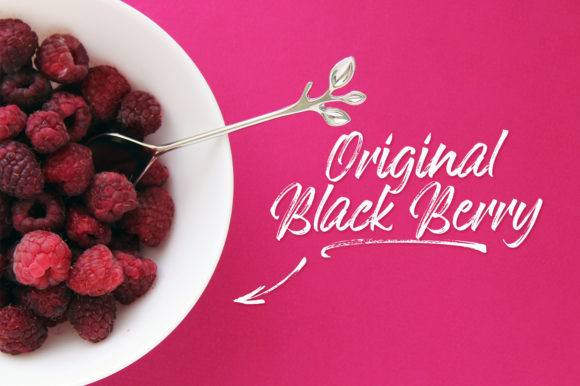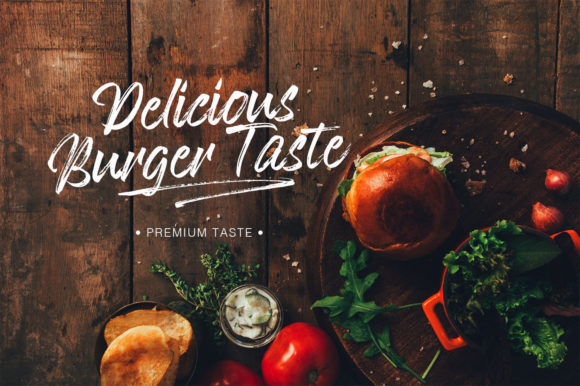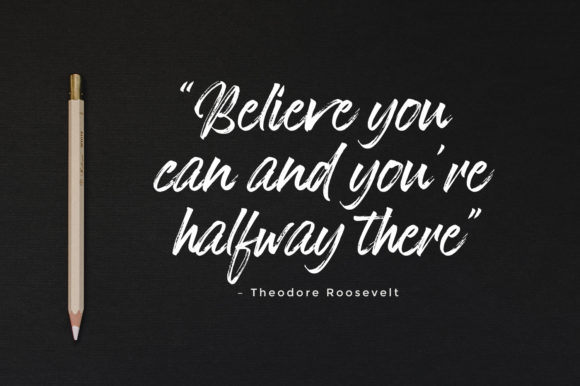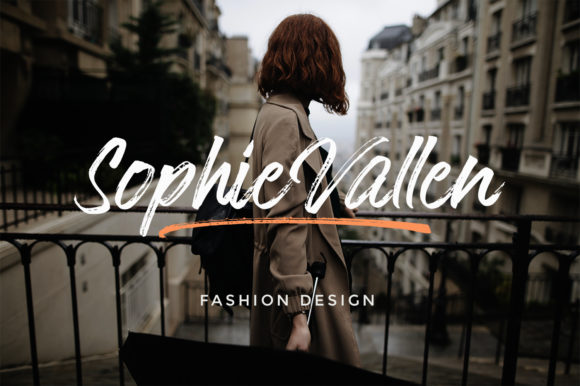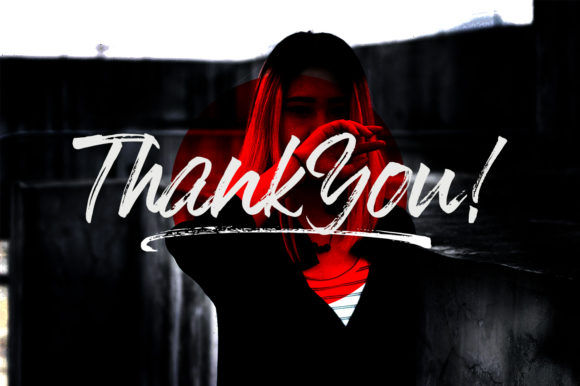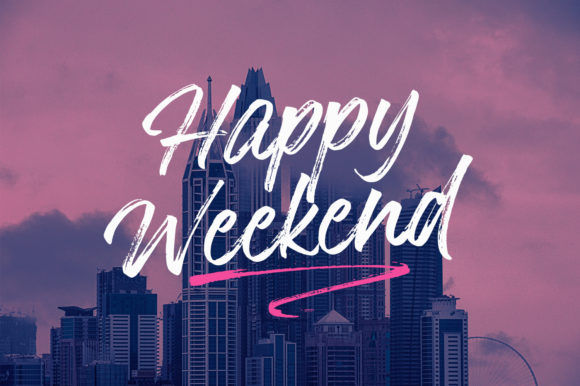
Hokagata Font
About Hokagata Font
Hokagata is a casual, fun handwritten font, created by using a brush pen. Clean and a little bit quirky, this font is the perfect fit for all of your logos, branding, social media, and crafty DIY projects.